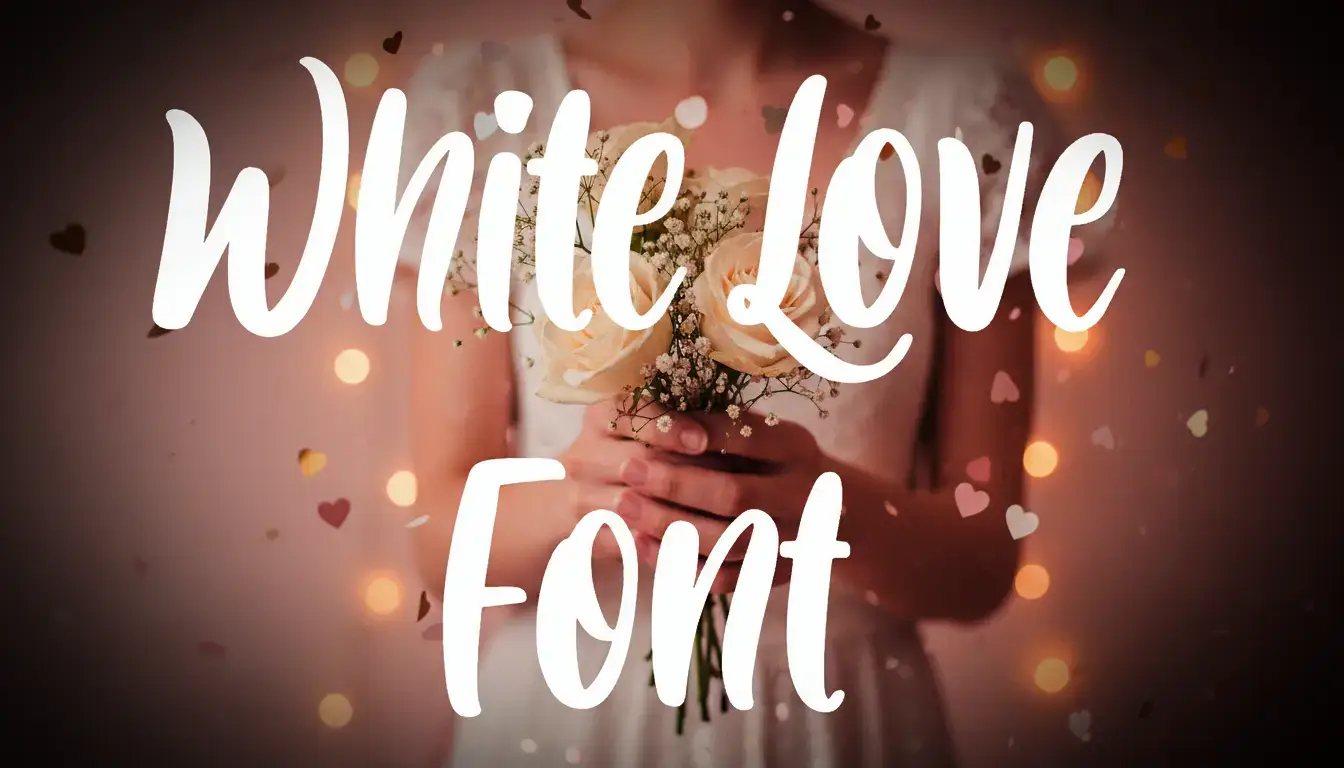
White Love Font
White Love
White Love is a script font created by Siti Nurjanah. The letters have the smooth movement of real pen lettering, which is why even a single name looks special in it. You can download it for free and test it with your own words in the preview above.
What You Can Type With White Love
You get every letter from A to Z in both cases and all the numbers from 0 to 9, which means White Love can handle full sentences, dates and prices. Common punctuation such as &, !, ? and @ is included as well. It also has the accented letters you need for Spanish, French, German, Portuguese and Italian.
Where White Love Works Best
White Love is a natural fit for wedding invitations, logos and signature-style headings. Script fonts read best in short bursts, so keep it to names, titles and one-line quotes. Skip all caps: script capitals are drawn to start a word, not to fill one.
Does White Love support accented letters?
Yes. White Love includes the accented letters needed for Spanish, French, German, Portuguese and Italian, so it works for more than just English.